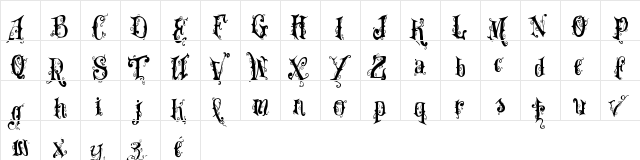
VTKS Dear Love Regular
Design Context for VTKS Dear Love Typeface
VTKS Dear Love is a composed and adaptable typeface that performs quietly and consistently across a wide range of design contexts.
Pro Tip: Pair VTKS Dear Love with a font of contrasting weight or personality to build a more expressive typographic hierarchy.